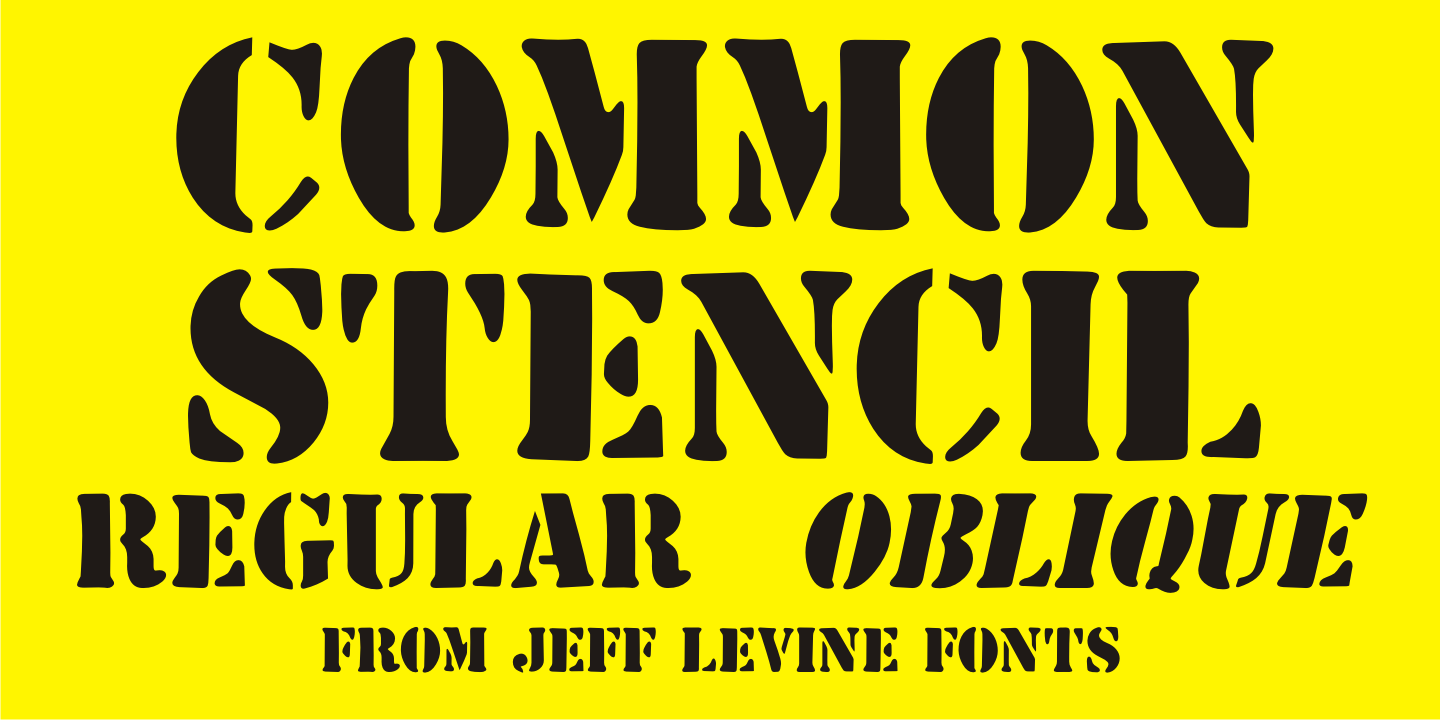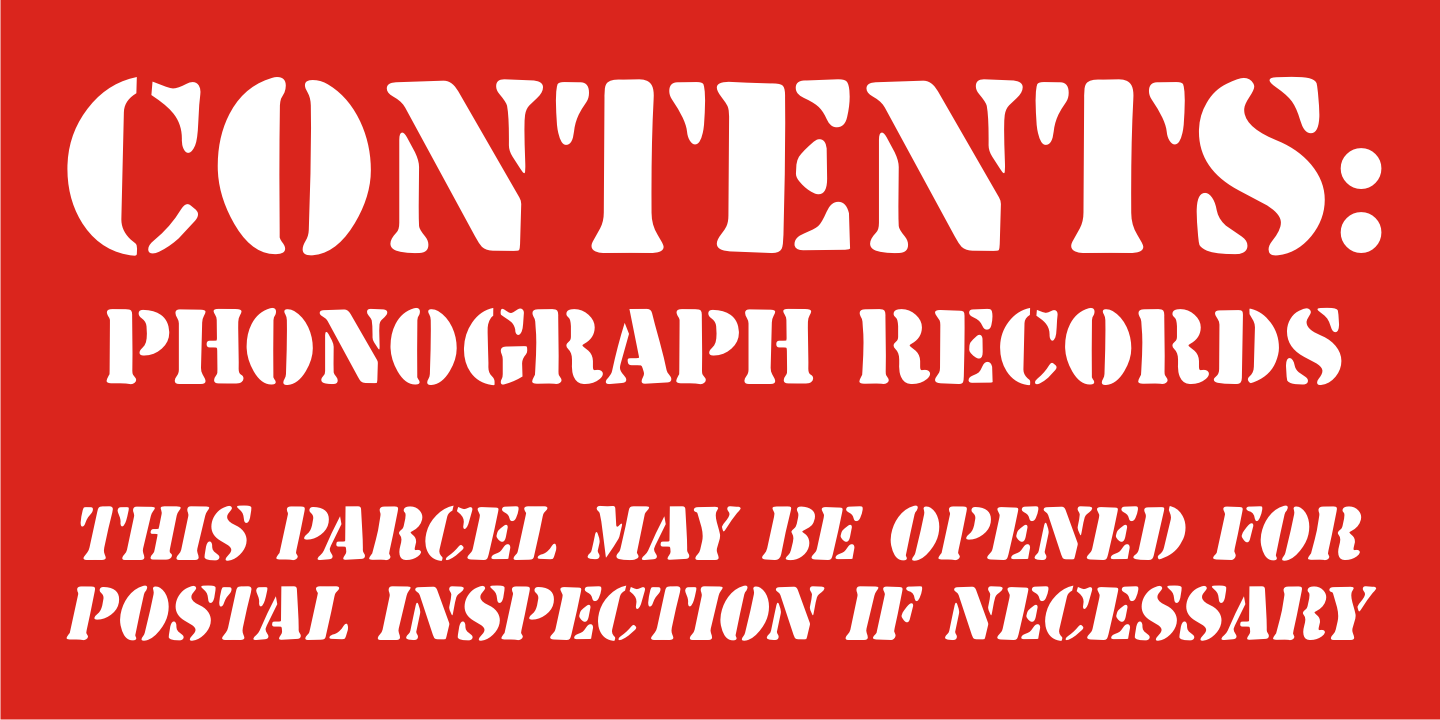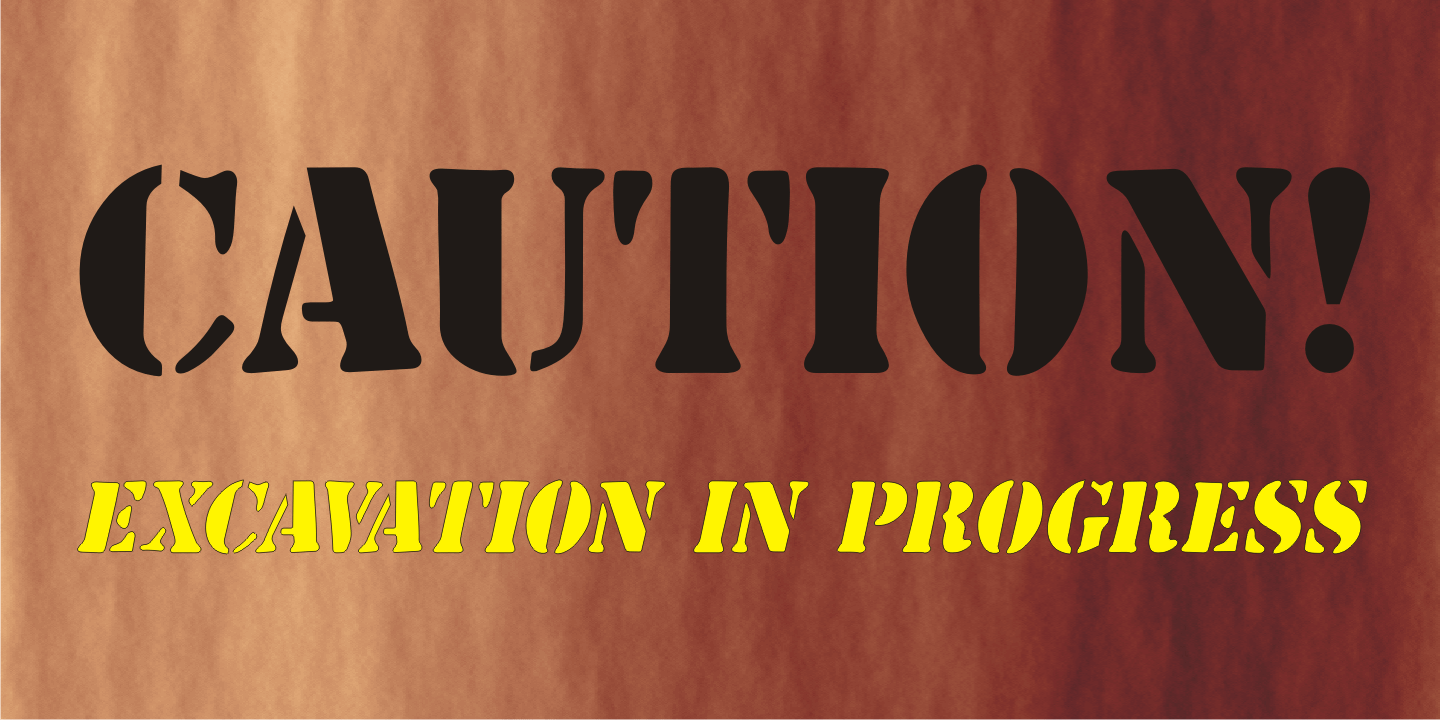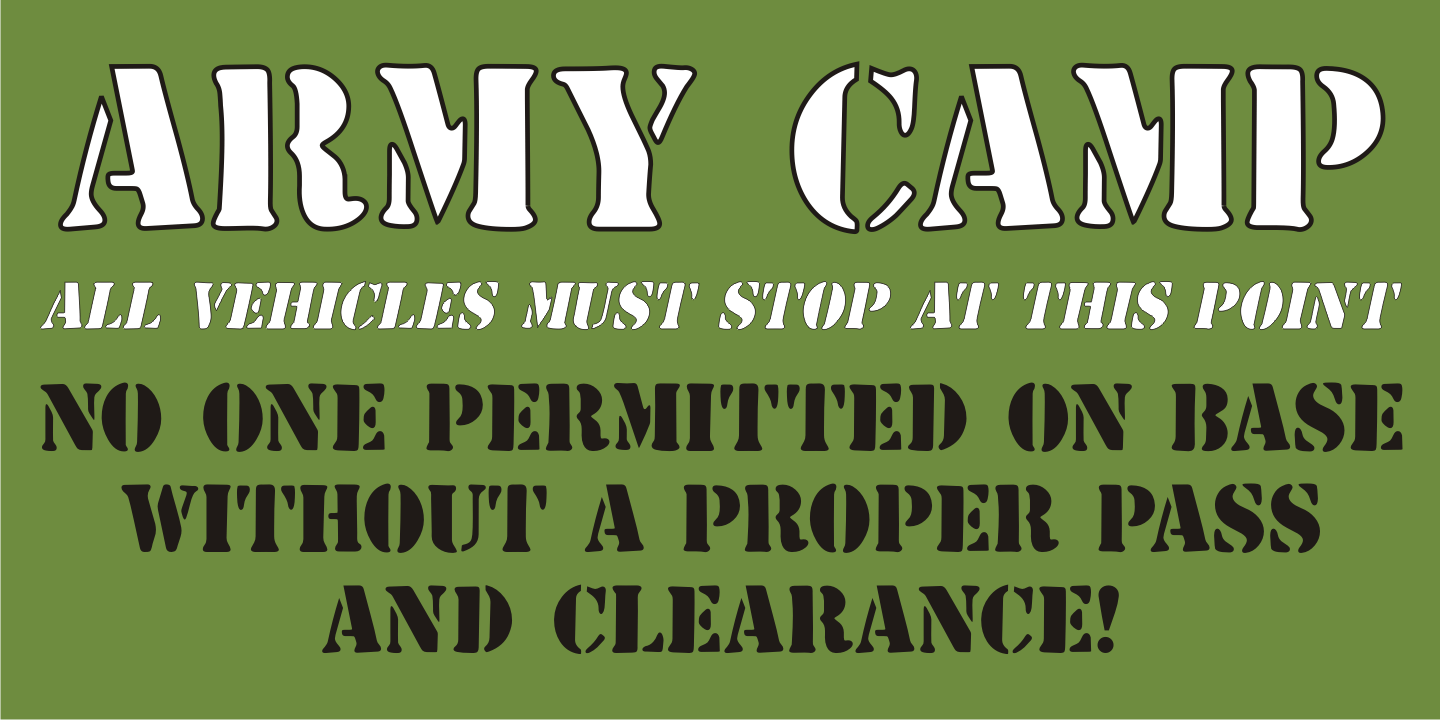
Common Stencil
Common Stencil JNL takes a vintage lettering stencil from the 1980s with imperfectly bent cutting dies [which unintentionally gave the characters a distressed or 'grunge” look] and recreates it in a digital form.
The design is available in both regular and oblique versions.